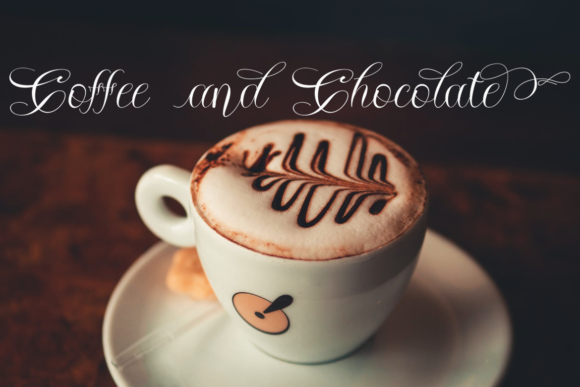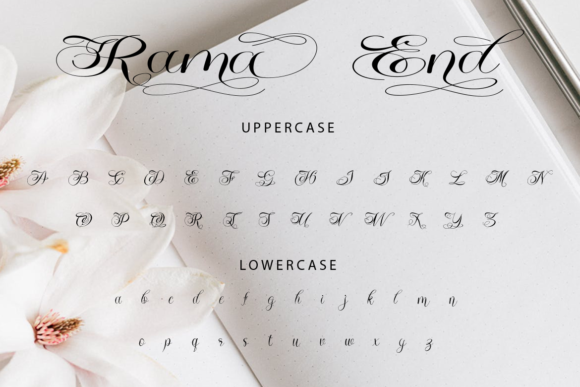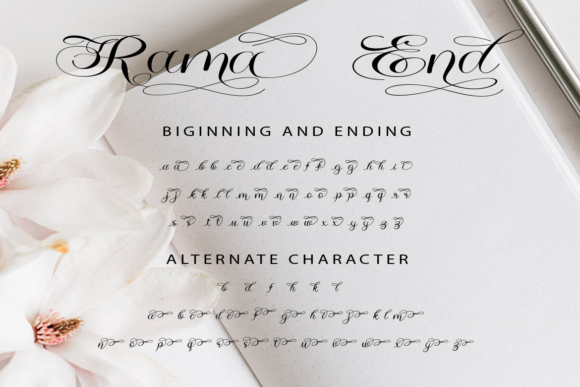
Introduction to Rama End Font Font
Fonts play a crucial role in design, and the Rama End Font font is a typeface that brings both character and versatility to any project. Whether you’re working on a branding project, a website, or a print design, the Rama End Font font offers a unique style that can elevate your work.
Rama End feels incredibly romantic and beautiful.
It is PUA encoded which means you can access all of the glyphs and swashes with ease It features a varying baseline, smooth lines, gorgeous glyphs and stunning alternates.
Key Features of Rama End Font Font
Why Choose Rama End Font Font?
The Rama End Font font is more than just a typeface – it’s a design tool that helps you communicate your message with style and clarity. Its unique character set and versatile design make it suitable for a wide range of applications, from elegant invitations to bold headlines.
With its carefully crafted letterforms and balanced proportions, the Rama End Font font ensures readability and visual appeal across all mediums.
What makes Rama End Font font special?
The Rama End Font font stands out with its unique design, exceptional readability, and versatility across various design applications.